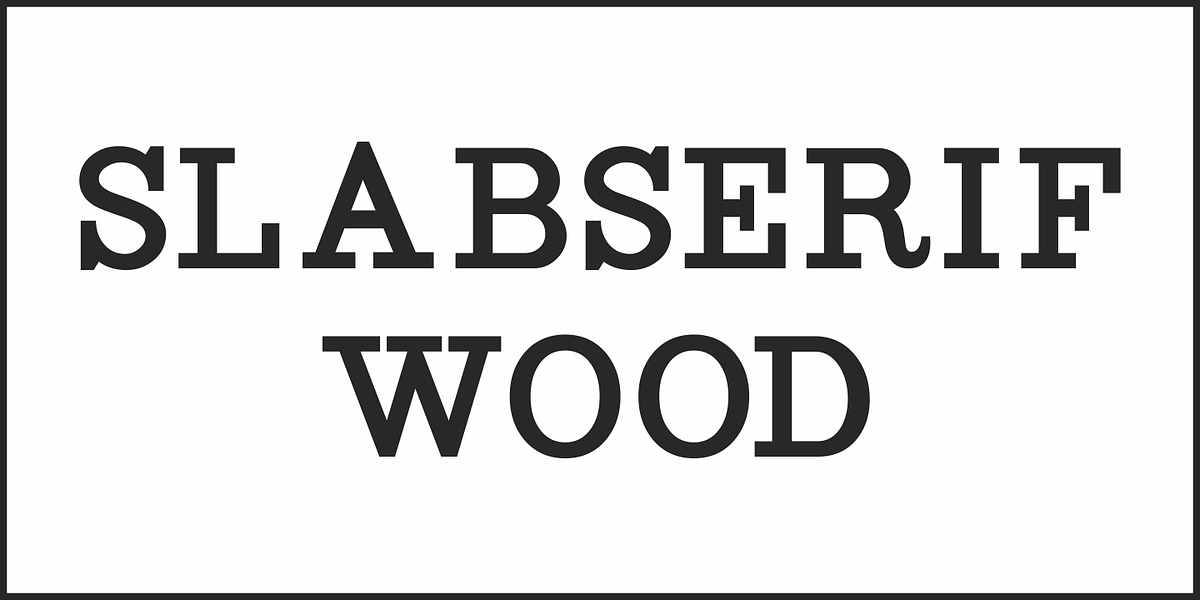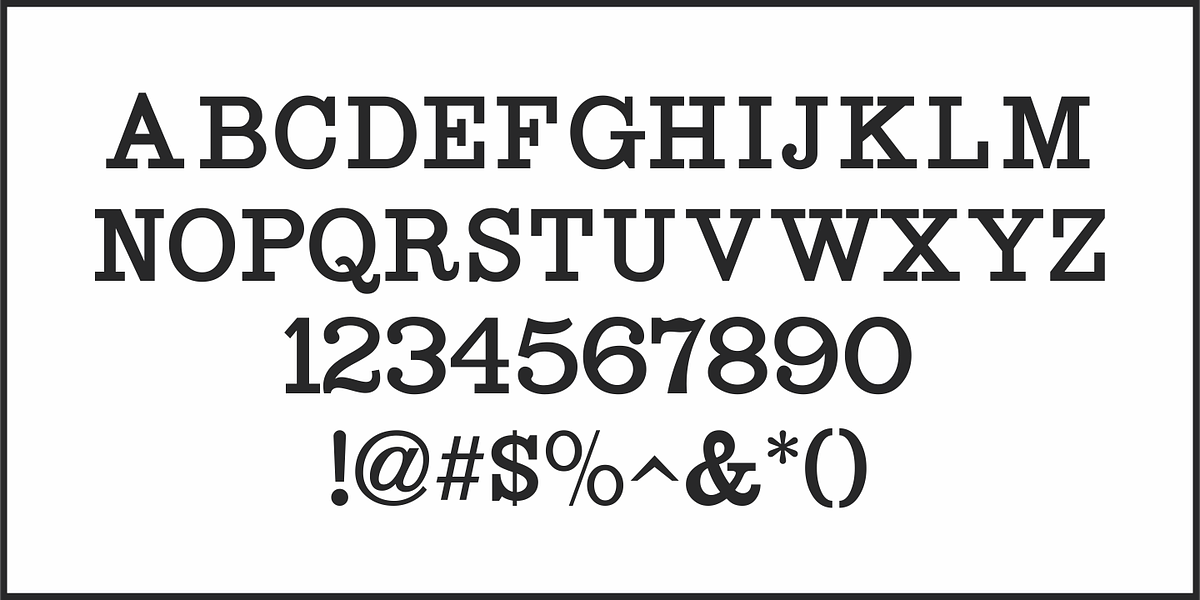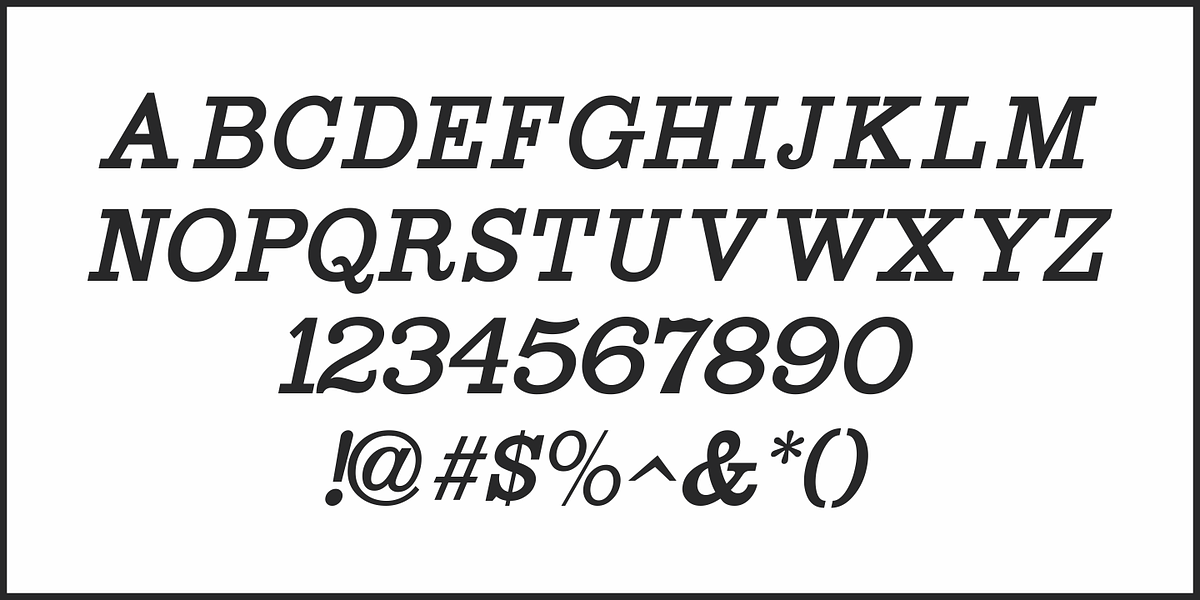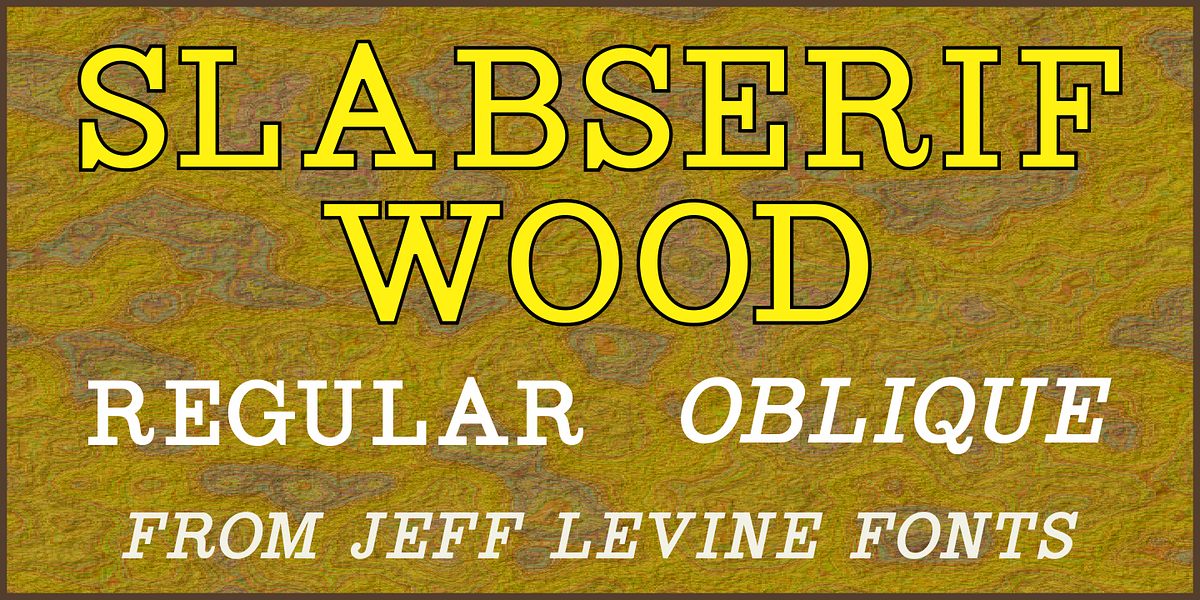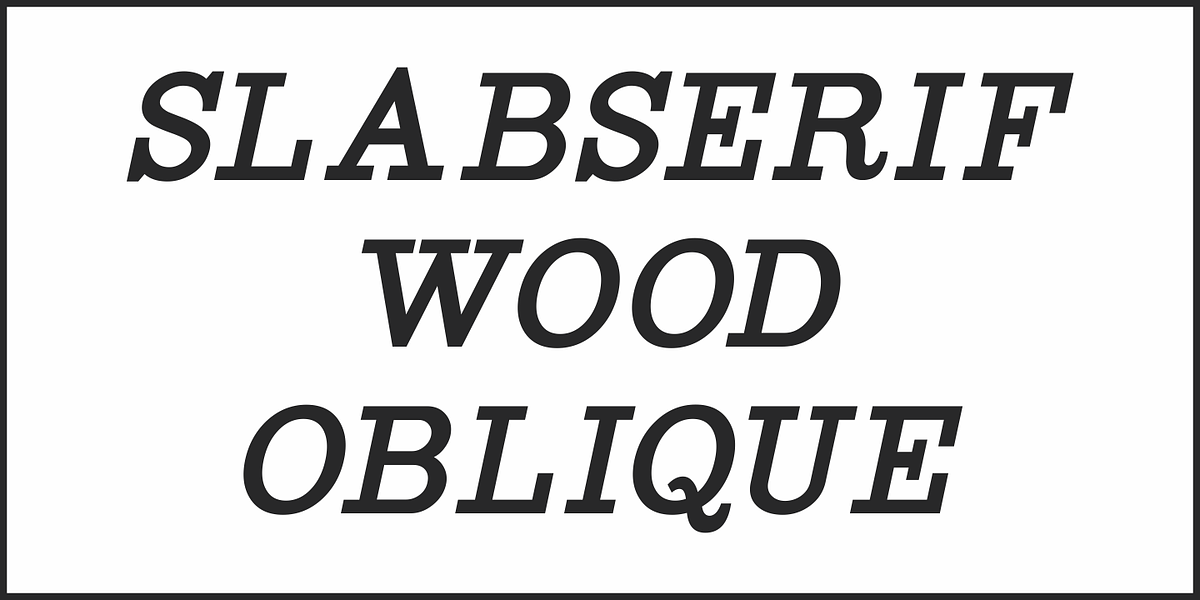
Slabserif Wood JNL
Vintage wood type with a strong Clarendon influence served as the model for Slabserif Wood JNL, which is available in both regular and oblique versions.